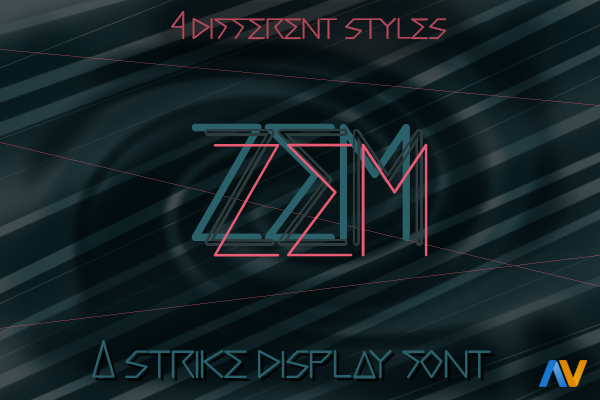
ZEM
A strike display font for a design purposes. ZEM is a font created by Alberto Villanueva 2016.4 styles: triple line, double line, bold and light.Added web fonts.